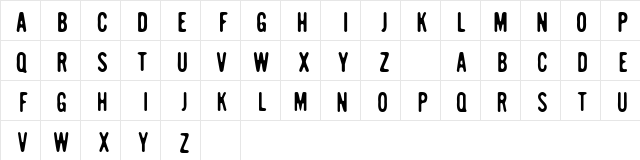
SugarCube Regular
Design Context for SugarCube Typeface
SugarCube takes a measured approach to typography — its balanced proportions and neutral character make it a reliable workhorse for both digital and print work.